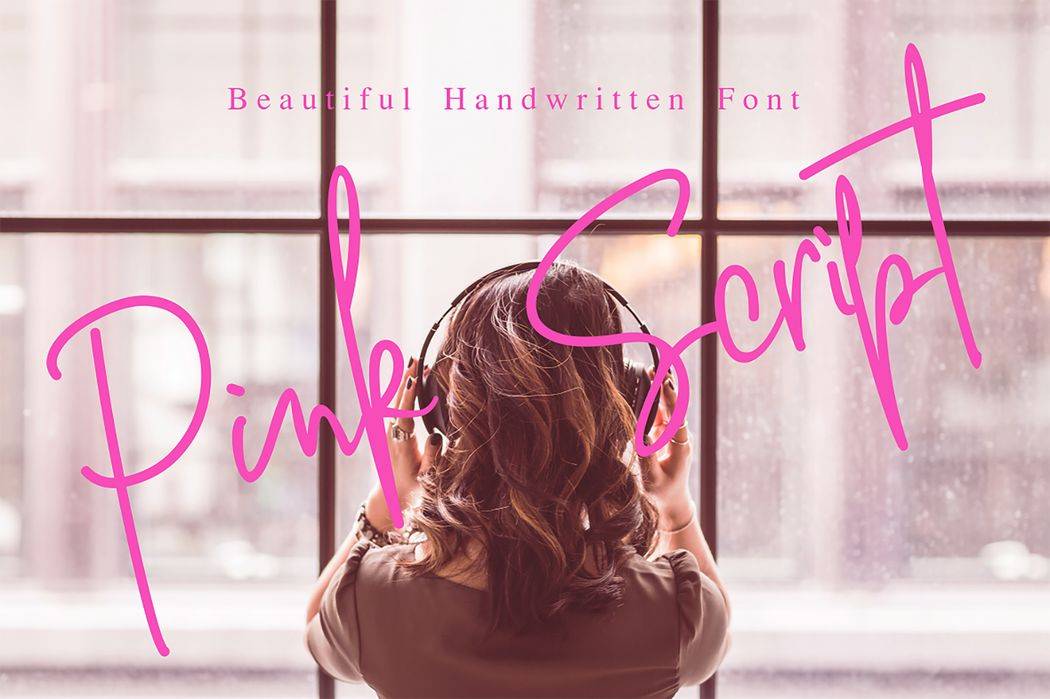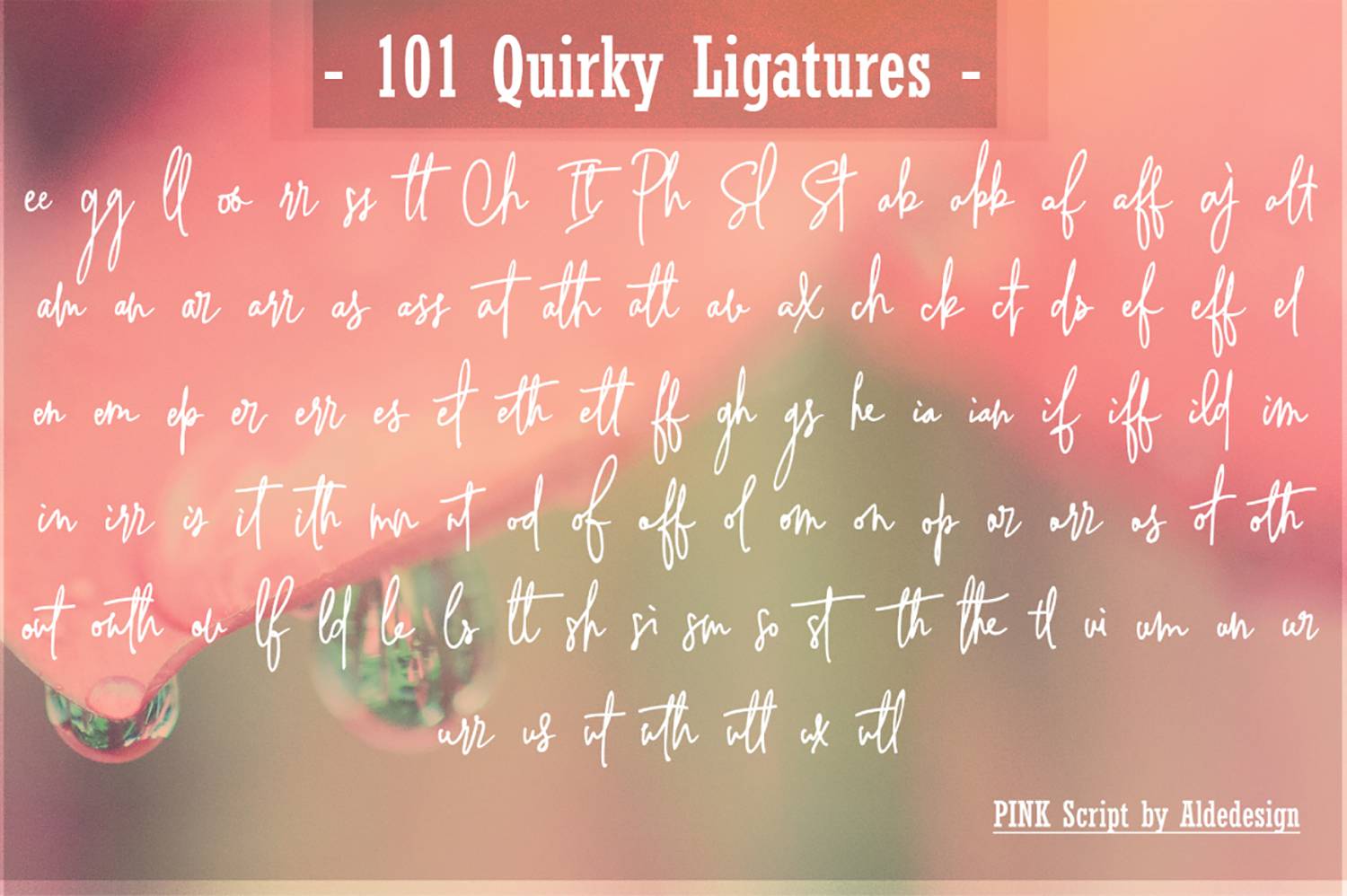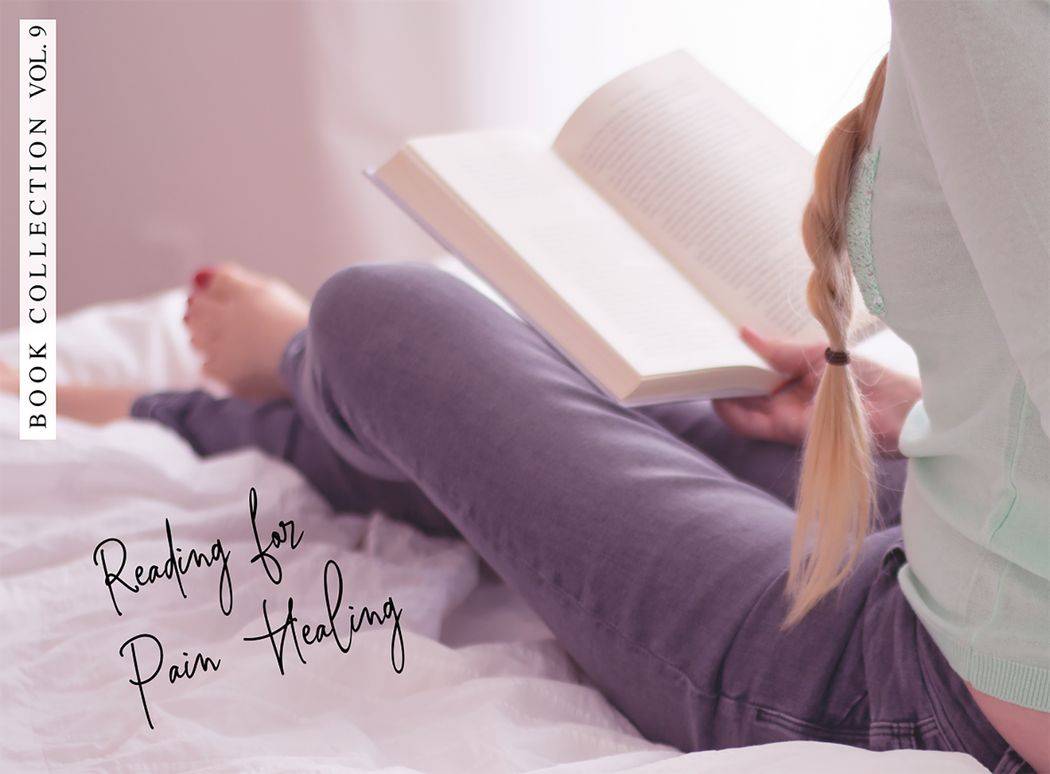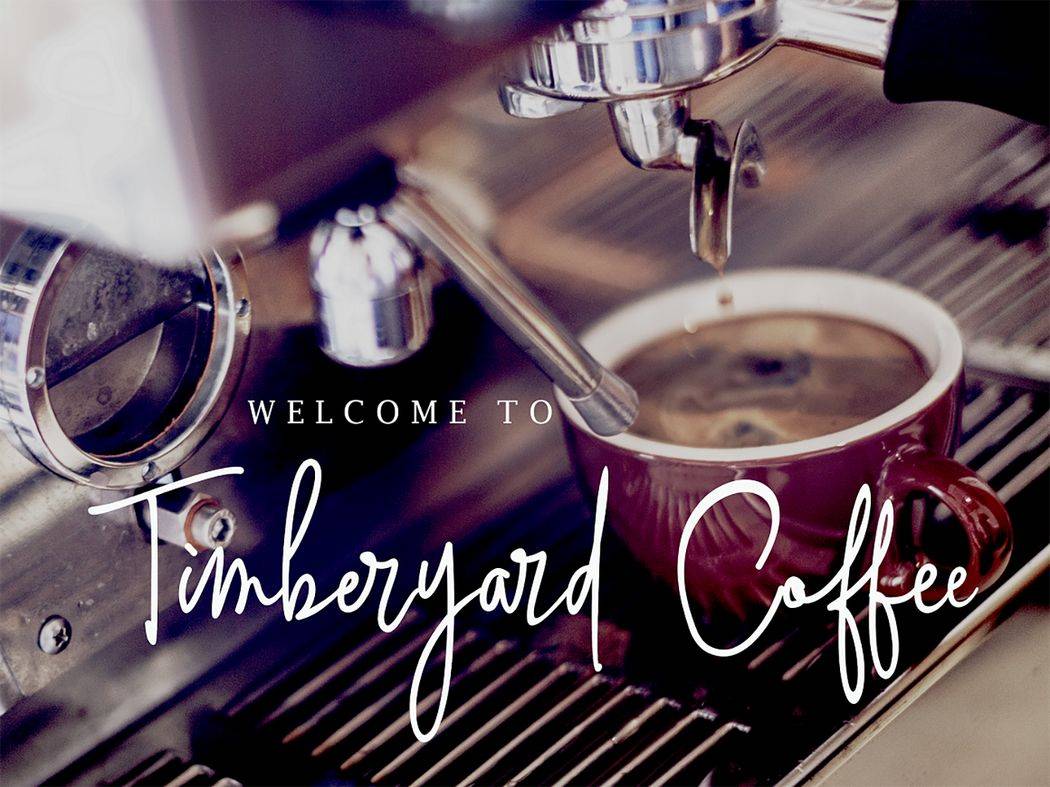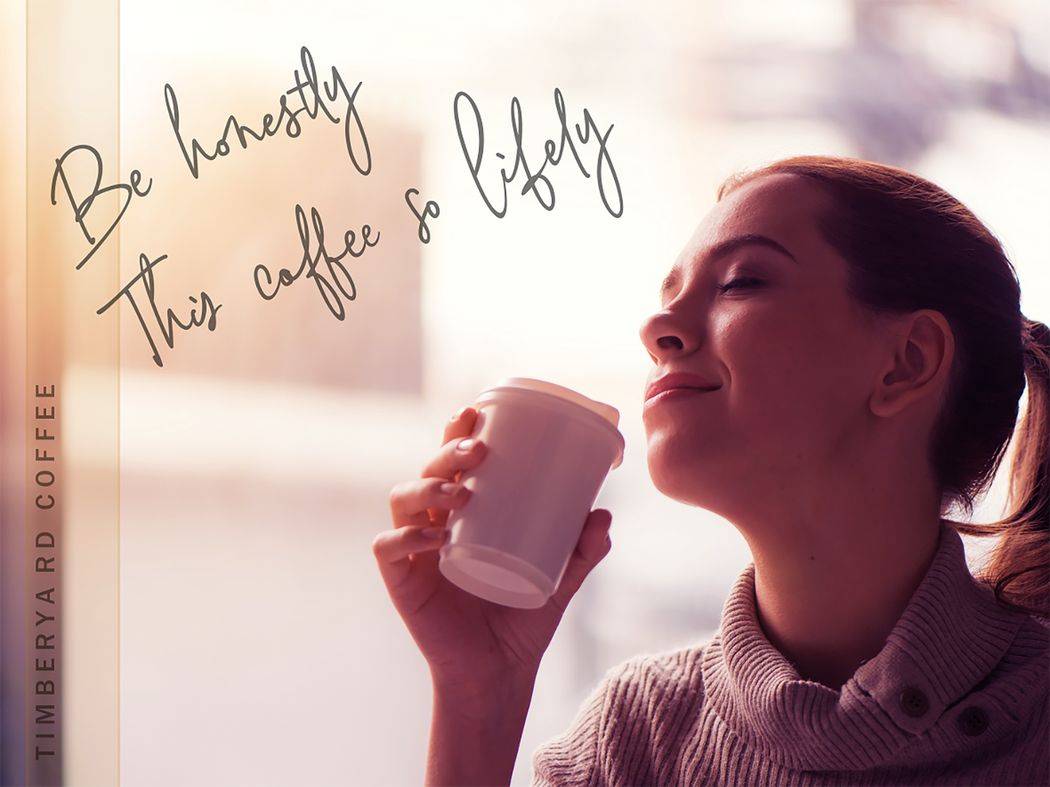
Pink Script is a delicate and elegant handwritten script font characterized by its tall, narrow letterforms and flowing, connected strokes. It features a light weight with consistent thin lines, giving it a graceful, airy feel that works beautifully for feminine and stylish branding, invitations, or artistic projects. This font’s casual yet refined personality makes it ideal for logos, fashion packaging, and creative headlines where a personal, chic touch is desired.
Pink Script Font
About Pink Script Font
| Font family | Pink Script Font |
| Languages supported | Latin, Greek, Thai, Symbols |
| Designer | Alde Design 2018 |